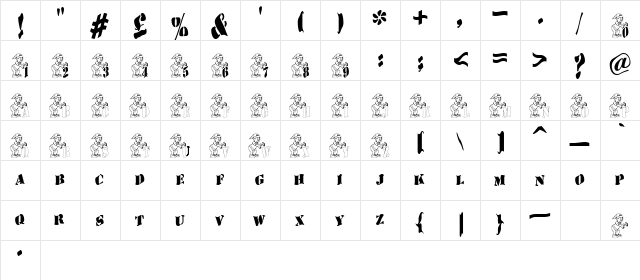
ElfHammering Regular
Design Context for ElfHammering Typeface
ElfHammering is a composed and adaptable typeface that performs quietly and consistently across a wide range of design contexts.